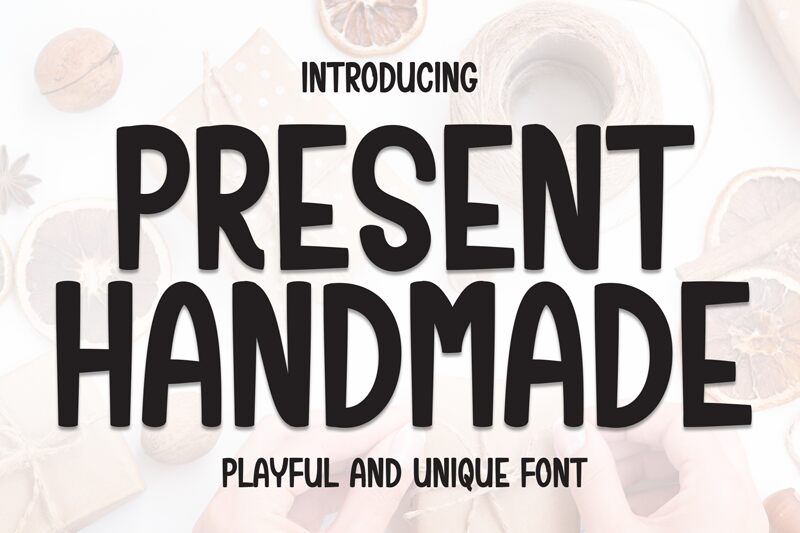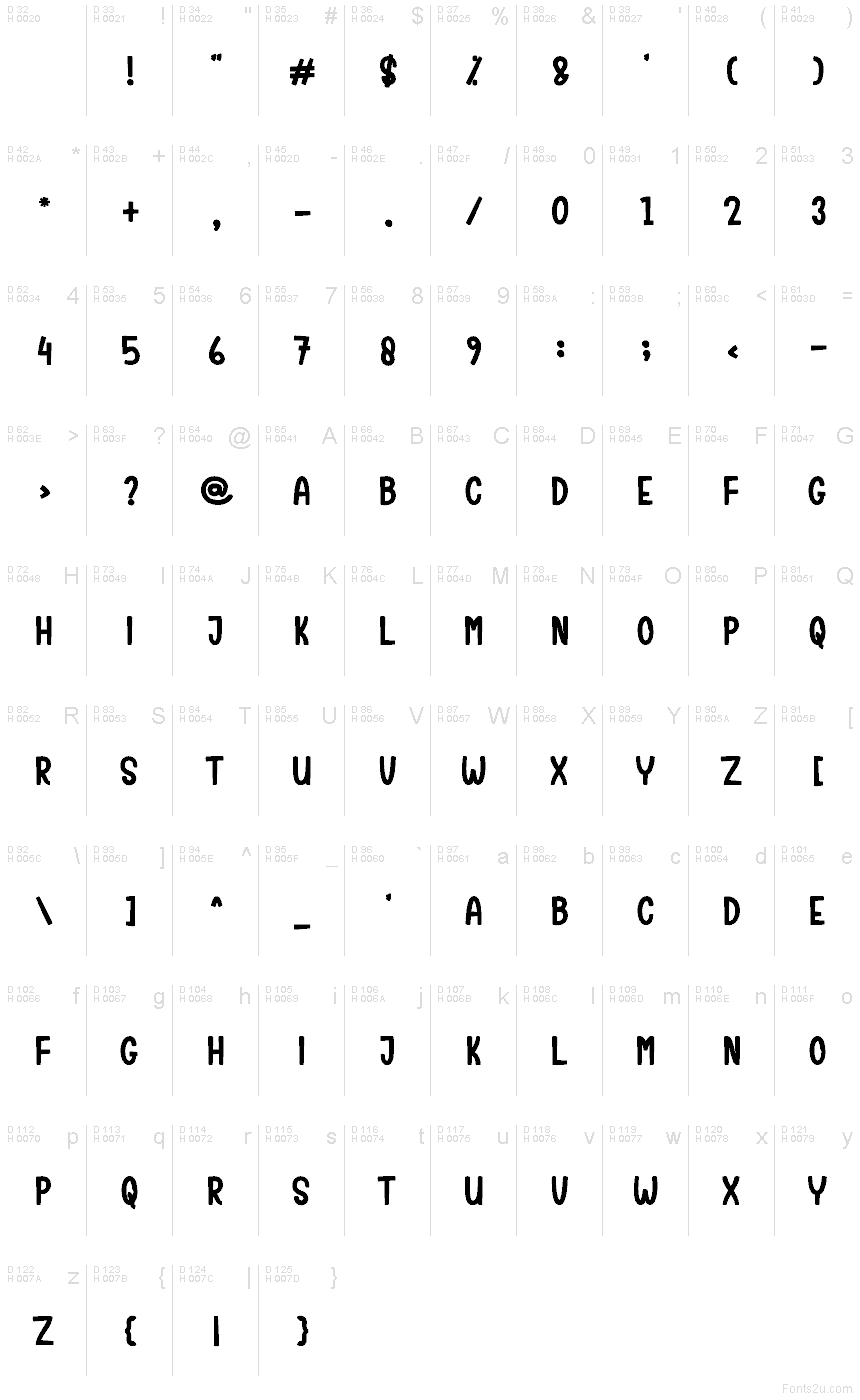
Present Handmade
Present Handmade font by Scratchones is a free cartoon display typeface with a loose, inky energy that feels like it was drawn straight onto wrapping paper. Tall, slightly wobbly letters stack together like hand-cut stickers, giving headlines a playful, homemade charm without becoming messy or hard to read. The strokes are bold and soft-edged, so text feels friendly, chunky, and ready for fun.
Using Present Handmade, you can bring this cozy, crafty character to kids’ book covers, birthday invitations, toy packaging, classroom posters, YouTube thumbnails, and playful brand logos. This free font shines at larger sizes, where its hand-drawn texture really shows. For body text, pair it with a clean rounded sans serif to keep things readable while letting Present Handmade handle the bold, joyful headlines.